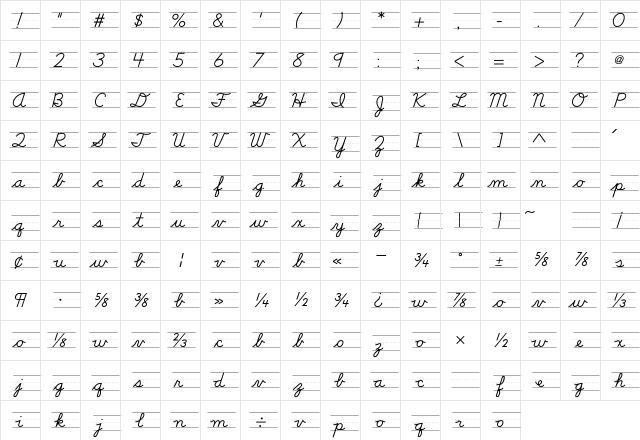
DN Cursive Arrows Rules Regular
Design Context for DN Cursive Arrows Rules
DN Cursive Arrows Rules flows with the natural rhythm of handwritten lettering, making it ideal for designs that call for warmth and personal expression.
Font Pairing: Combine DN Cursive Arrows Rules with a simple geometric sans for maximum contrast - the tension between flowing curves and clean structure is a classic typographic pairing.
Pro Tip: Use DN Cursive Arrows Rules for short runs of text - names, titles, or taglines. Extended body copy in script faces tires the eye quickly.